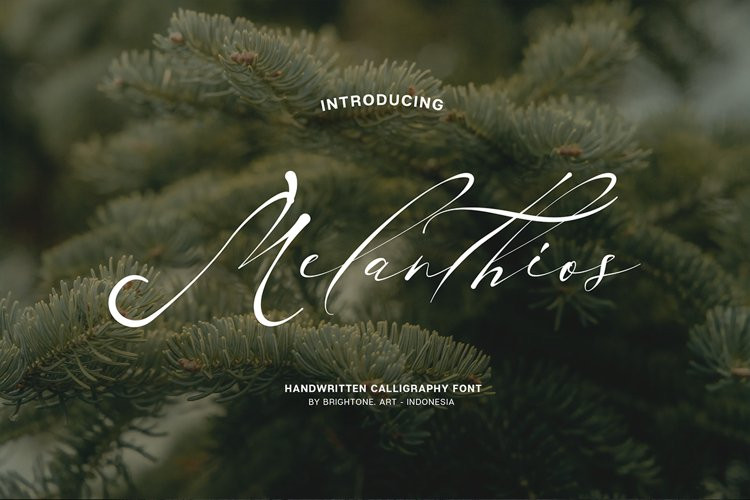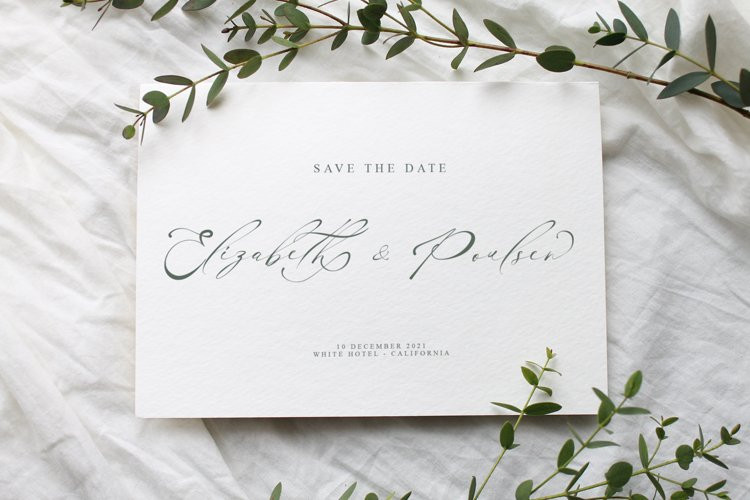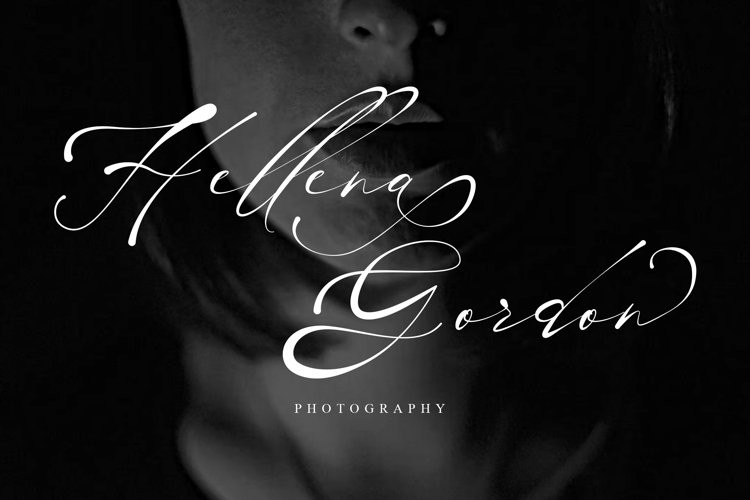
Melanthios Font
Melanthios FontMelanthios is Handwritten font includes uppercase, lowercase, punctuation, numbers, support multilingual, and good ligatures.
This font will be good use to branding your brand, tshirt design, lettering design, logo, or looks great when combined with your product for instagram post or instagram story.